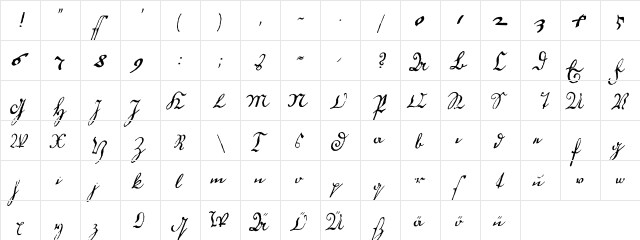
German Latin WF Regular
Design Context for German Latin WF Typeface
German Latin WF is a composed and adaptable typeface that performs quietly and consistently across a wide range of design contexts.